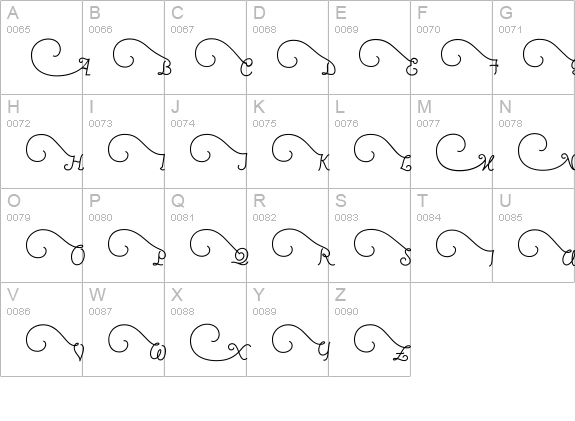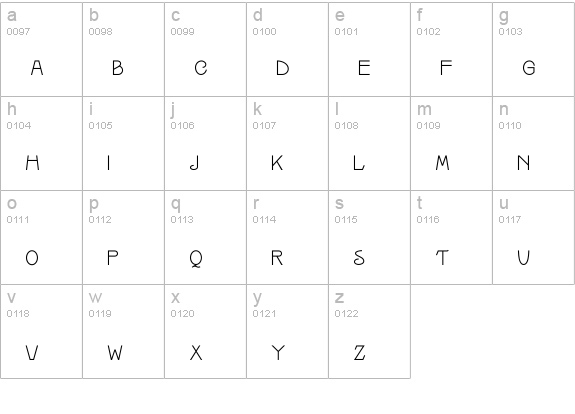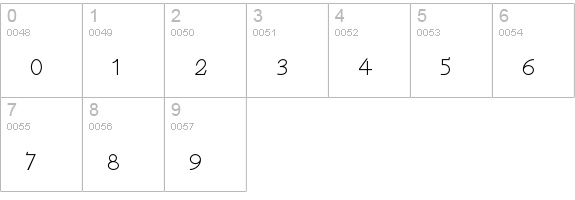
MazurkaNF Font Details
MazurkaNF is a charming and elegant font that exudes a sense of sophistication and style. With its delicate curves and graceful letterforms, this typeface is perfect for adding a touch of refinement to any project. The ornate details and intricate design of MazurkaNF make it a standout choice for invitations, branding, and other creative endeavors. Best of all, MazurkaNF is available for free download at FontsMarket.com, making it accessible to all designers and creatives looking to elevate their work with a touch of class. Whether you're designing a wedding invitation, crafting a logo, or simply looking to add a touch of elegance to your project, MazurkaNF is sure to impress with its timeless beauty and versatility. Download MazurkaNF today and elevate your designs to new heights of sophistication.